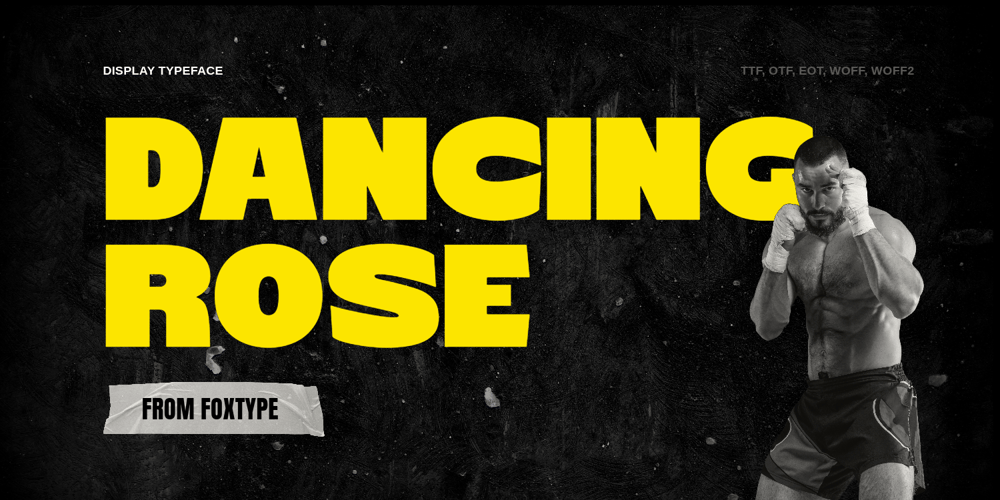
Dancing Rose
Dancing Rose font
Dancing Rose Font Family was designed by Evin Tony and published by FoxType. Dancing Rose contains 1 styles and family package options. Introducing Dancing Rose new generation Display Typeface. Dancing Rose Typeface created with the vision of to attract the audience to your brand. The finest details of this typeface are methodically and mathematically created. Dancing Rose is created with all the tasks of a corporate font and also for the usage in a variety of projects, including branding, logos, titles, headlines, posters, screens, display, digital ads, and everything else.We are putting a lot of effort on this font as a long-term project.